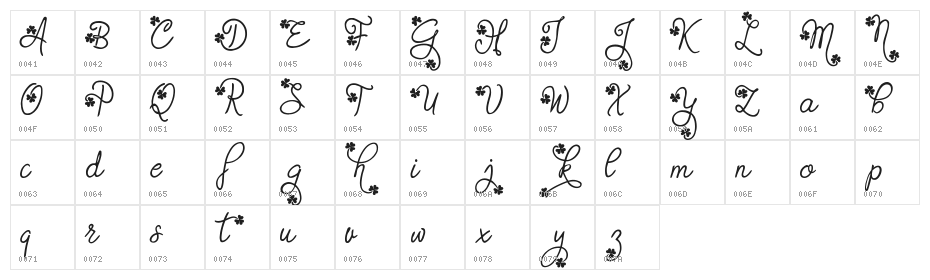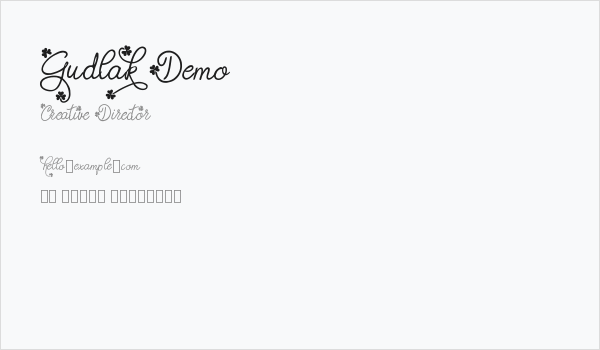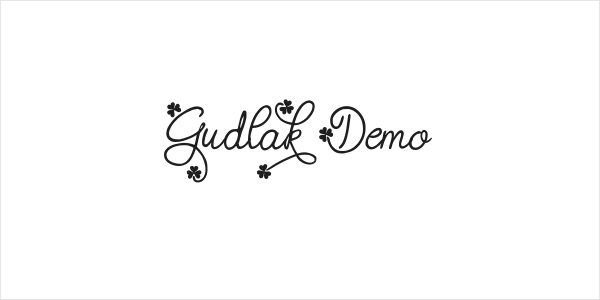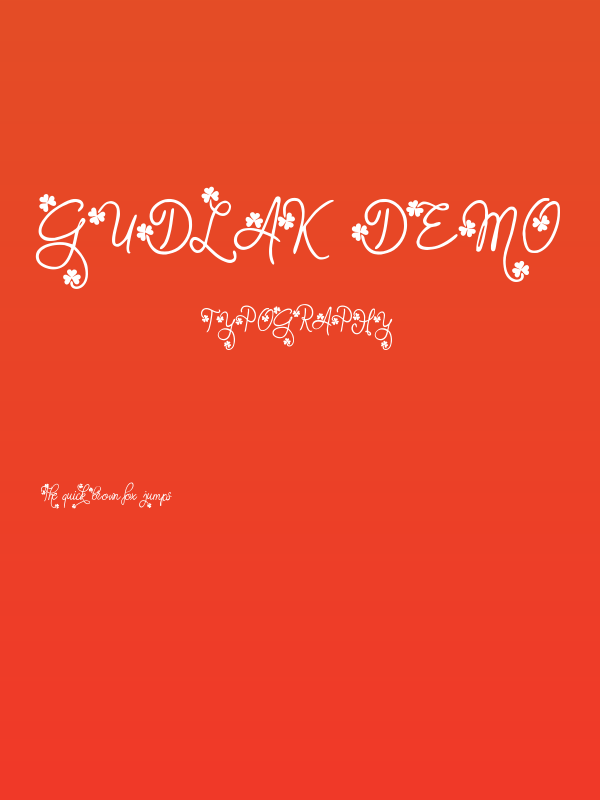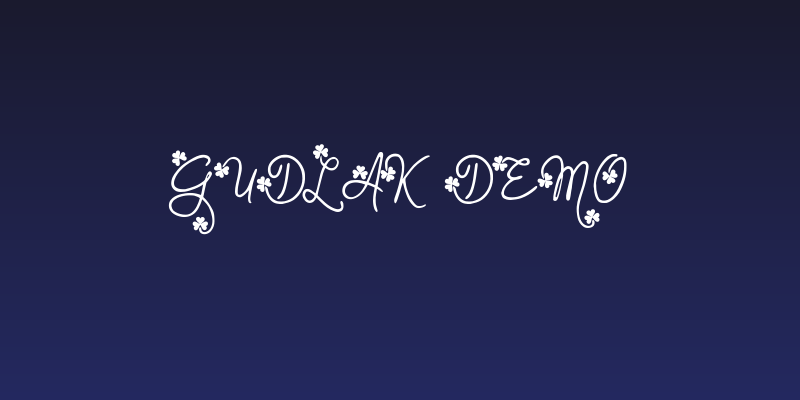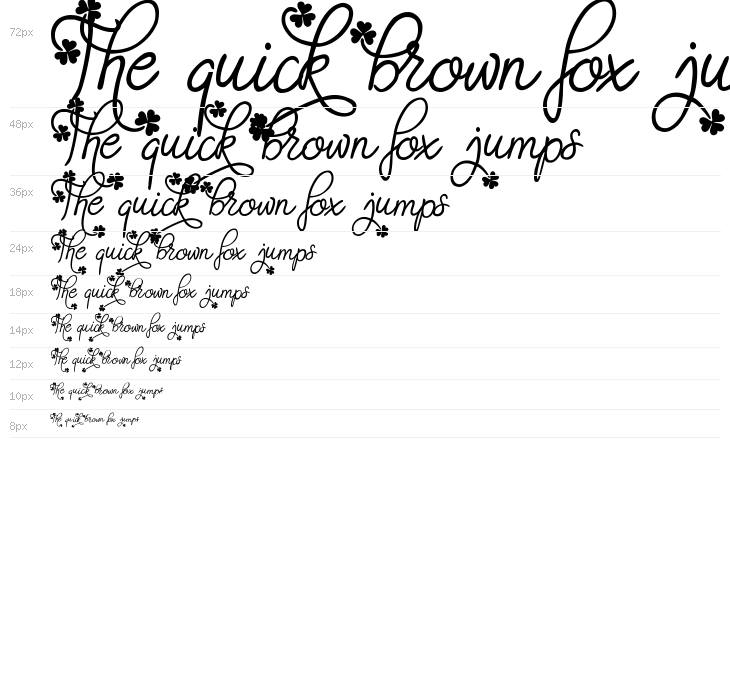
Gudlak Demo Font
Gudlak Demo Description
This decorative font features an elegant and whimsical design, characterized by its flowing script style and the incorporation of small clover motifs throughout the characters. The uppercase and lowercase letters are intricately designed, with the uppercase letters displaying a more pronounced flourish. The font maintains a consistent stroke width, giving it a balanced appearance. The inclusion of clovers adds a playful and unique touch, making it stand out as a distinctive choice for creative projects. The font's overall aesthetic is both charming and sophisticated, suitable for a variety of applications where a touch of elegance and creativity is desired.
| Proposed Projects | Ideal for wedding invitations, greeting cards, branding projects, and decorative posters. |